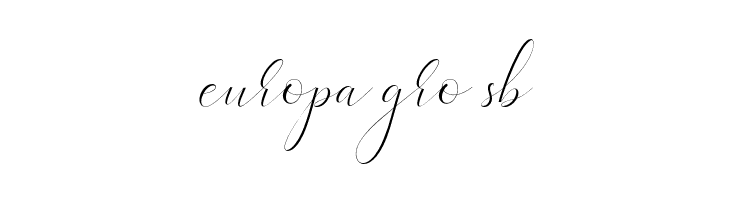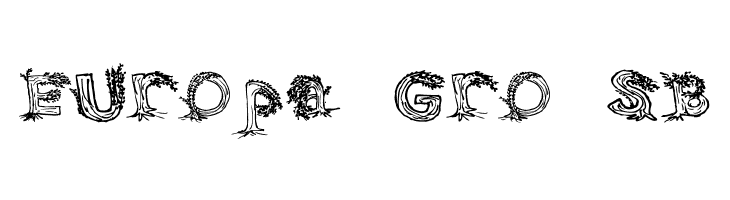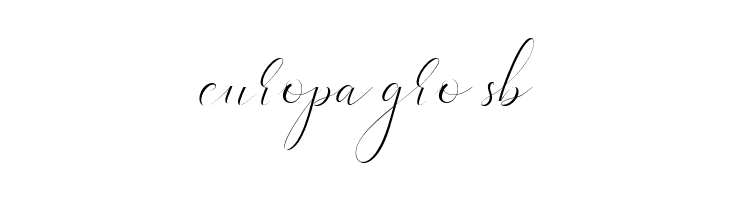
Heavenly-Demo Font
A cursive script font with elegant, flowing strokes and a handwritten appearance.
Heavenly Font
An elegant script font with flowing lines and sophisticated style.
Heavenly Rooted Font
A decorative font with intricate root and branch motifs, perfect for nature-themed designs.
HeavenlyWings Font
A bold, textured font with a hand-drawn, artistic style.
Heavenly Font
An elegant script font with graceful, flowing lines and a sophisticated style.